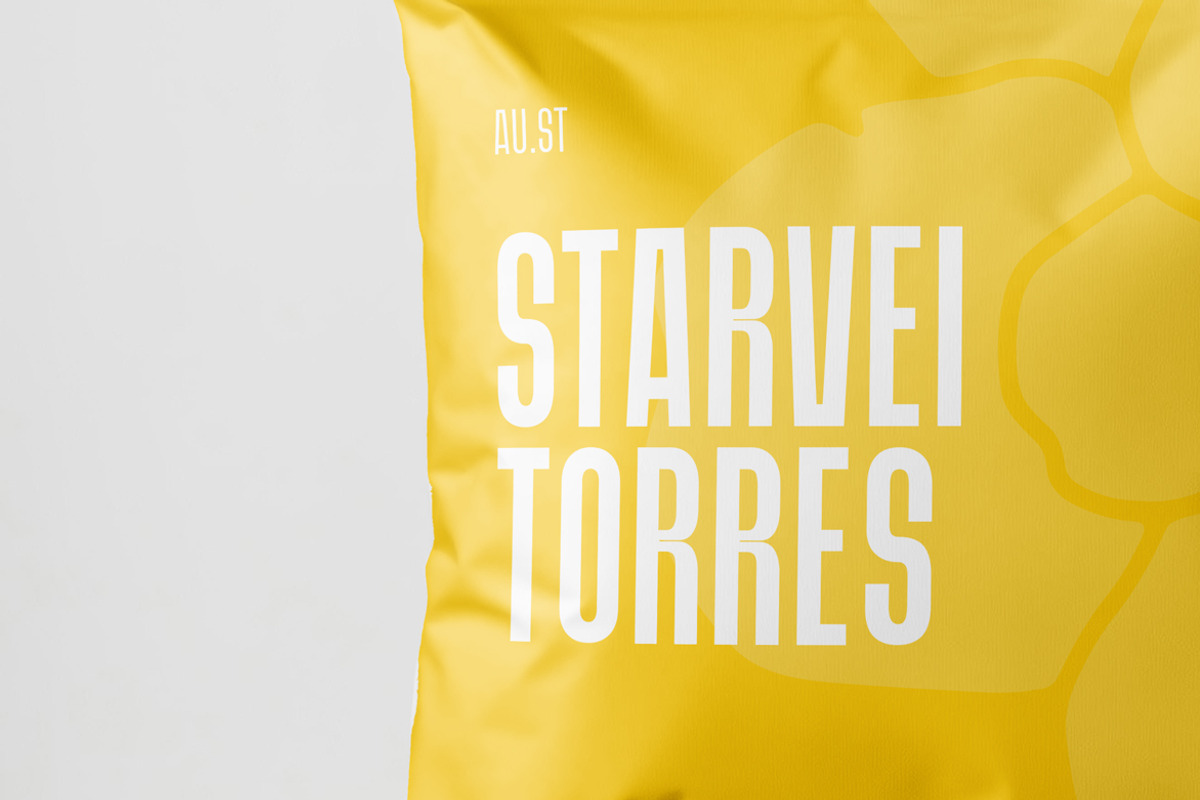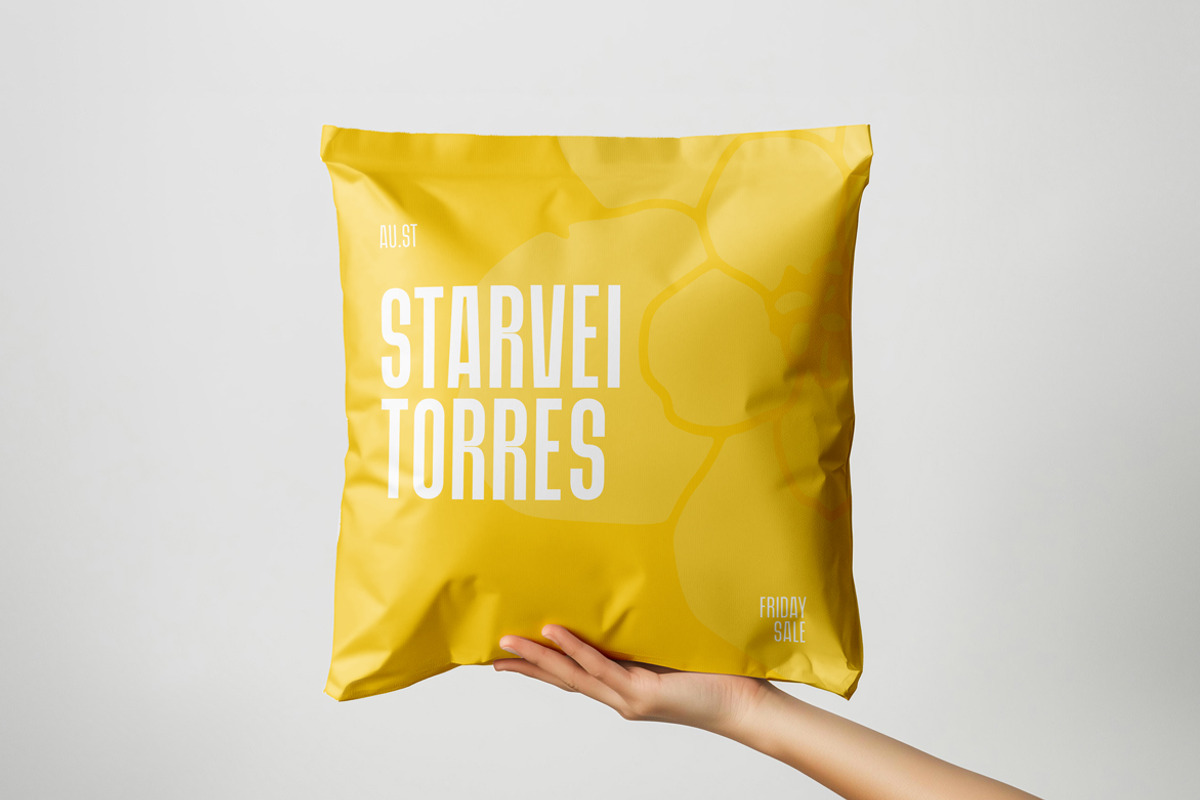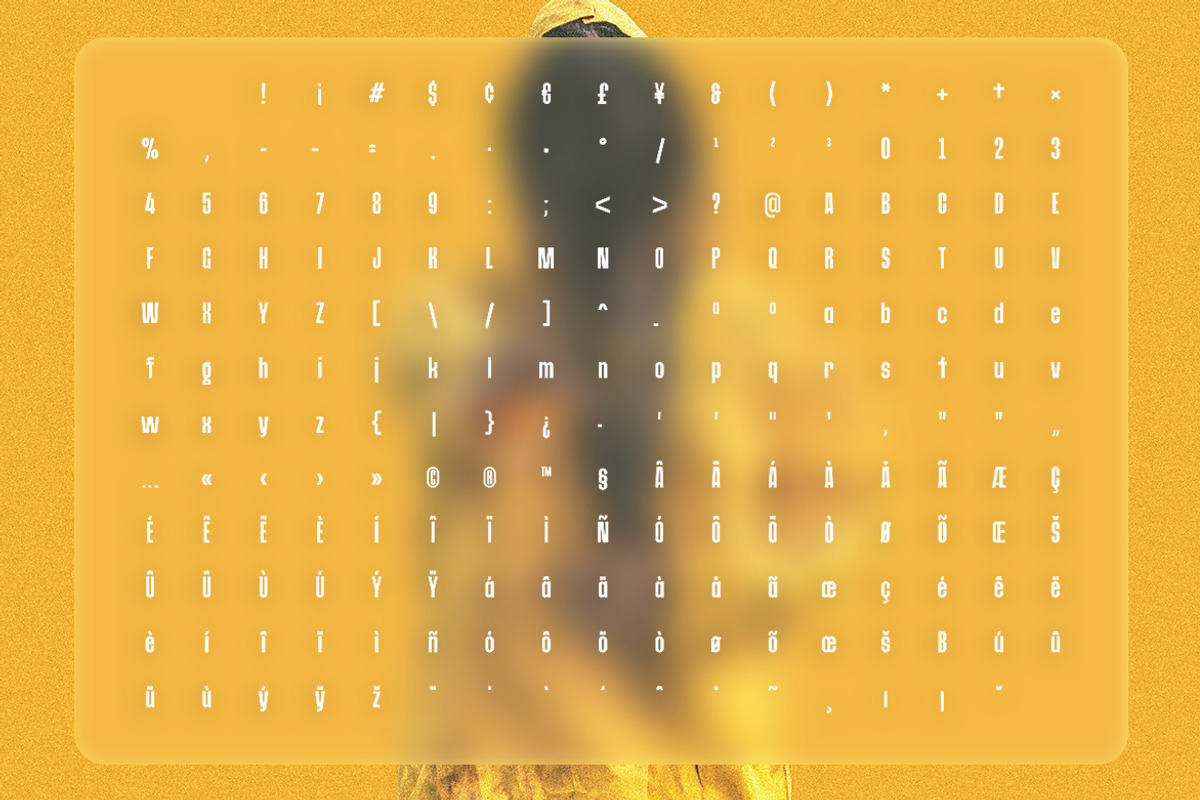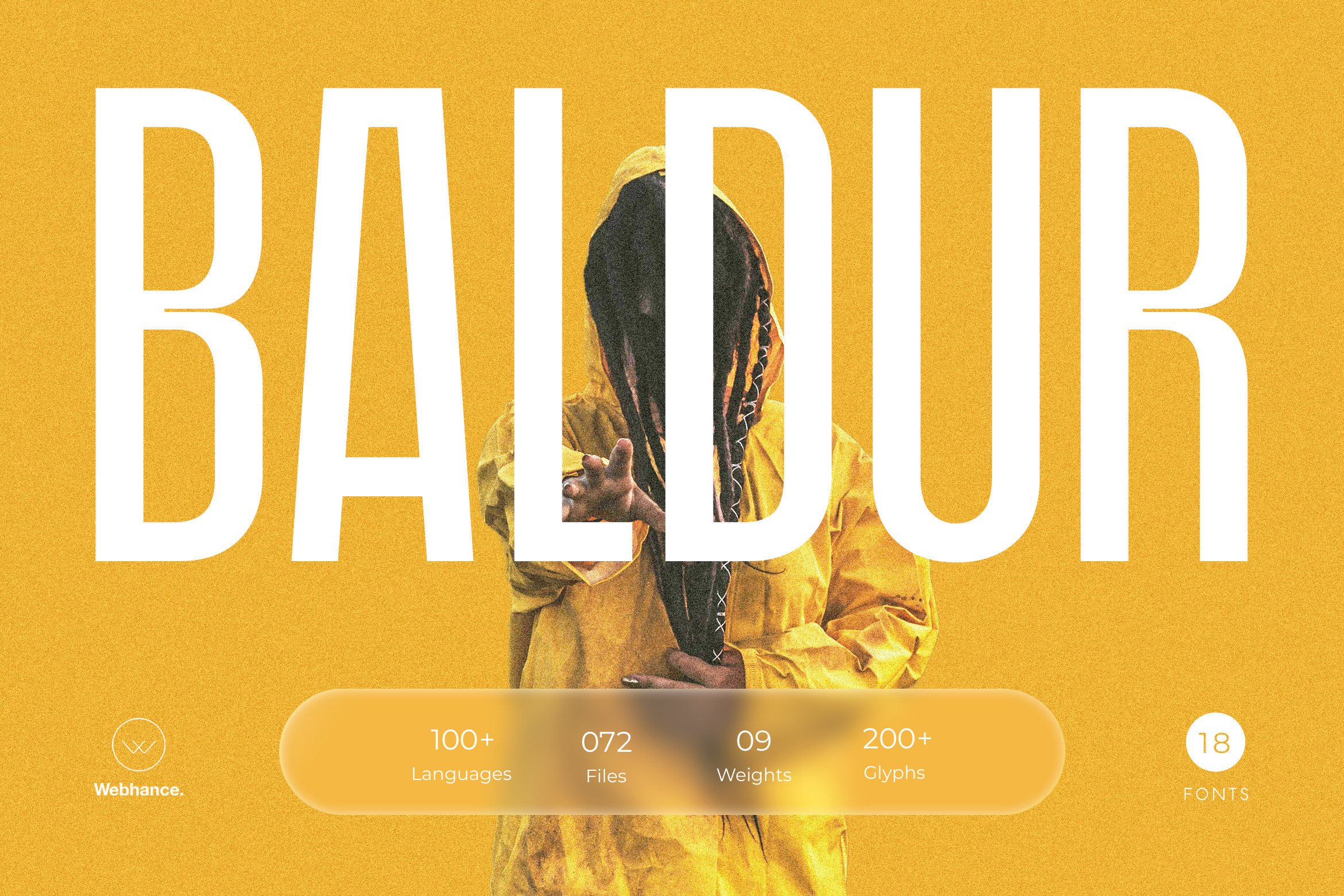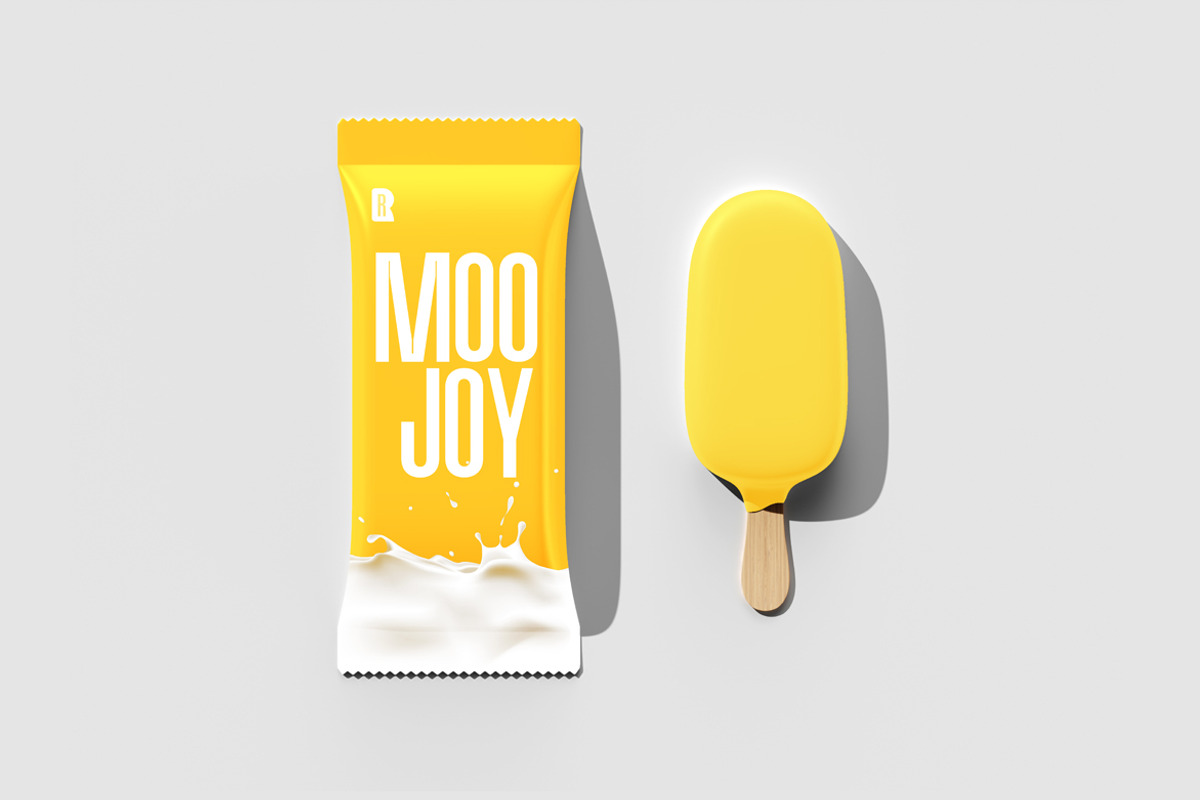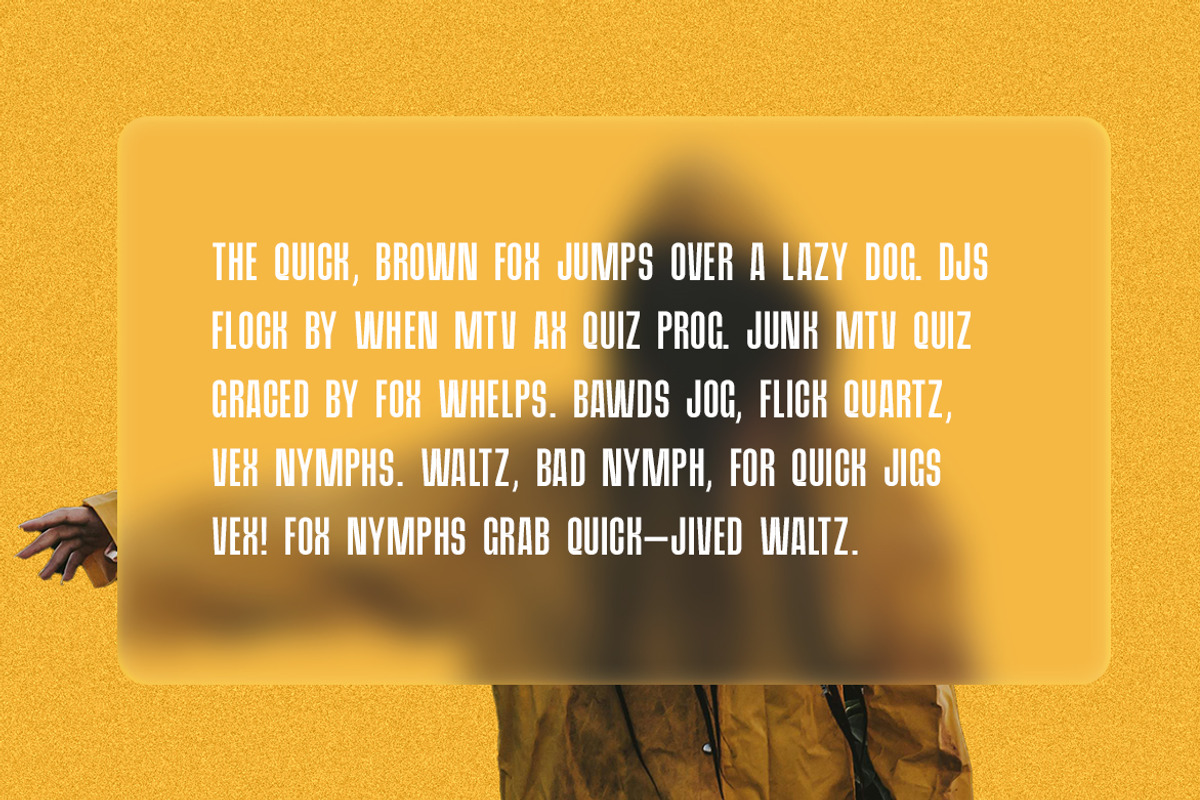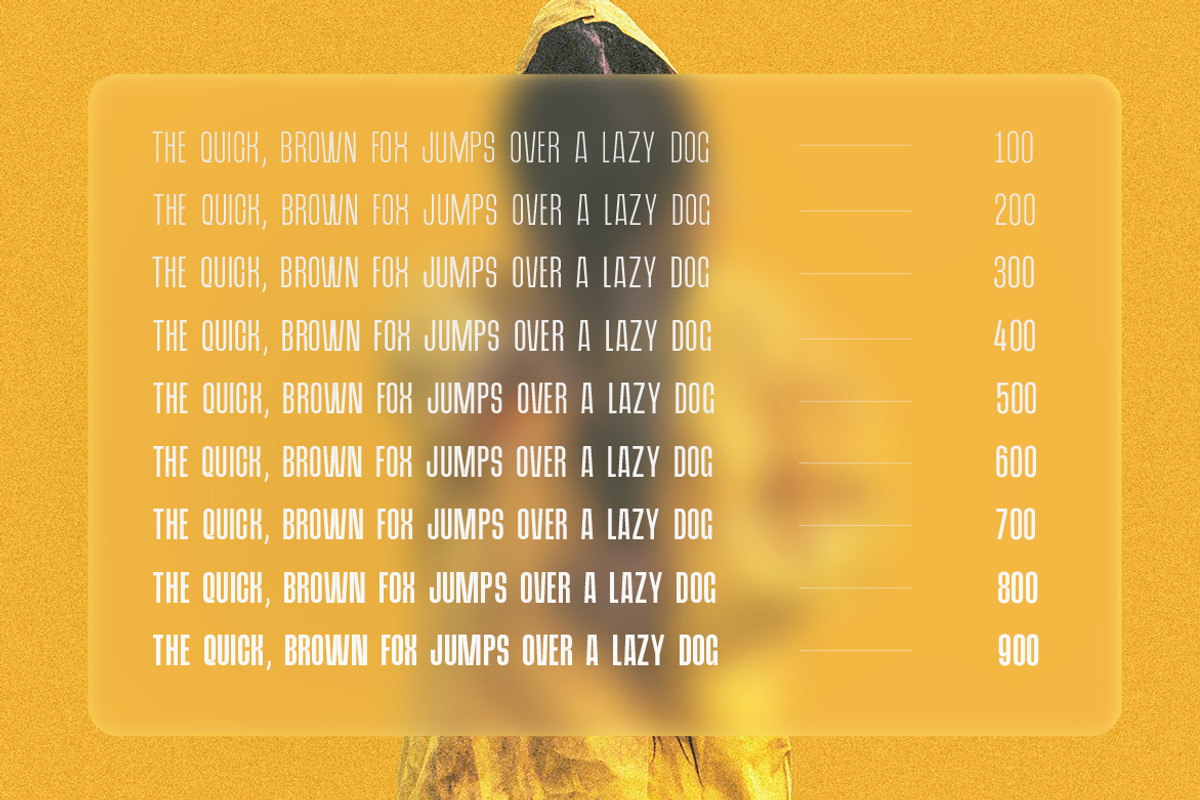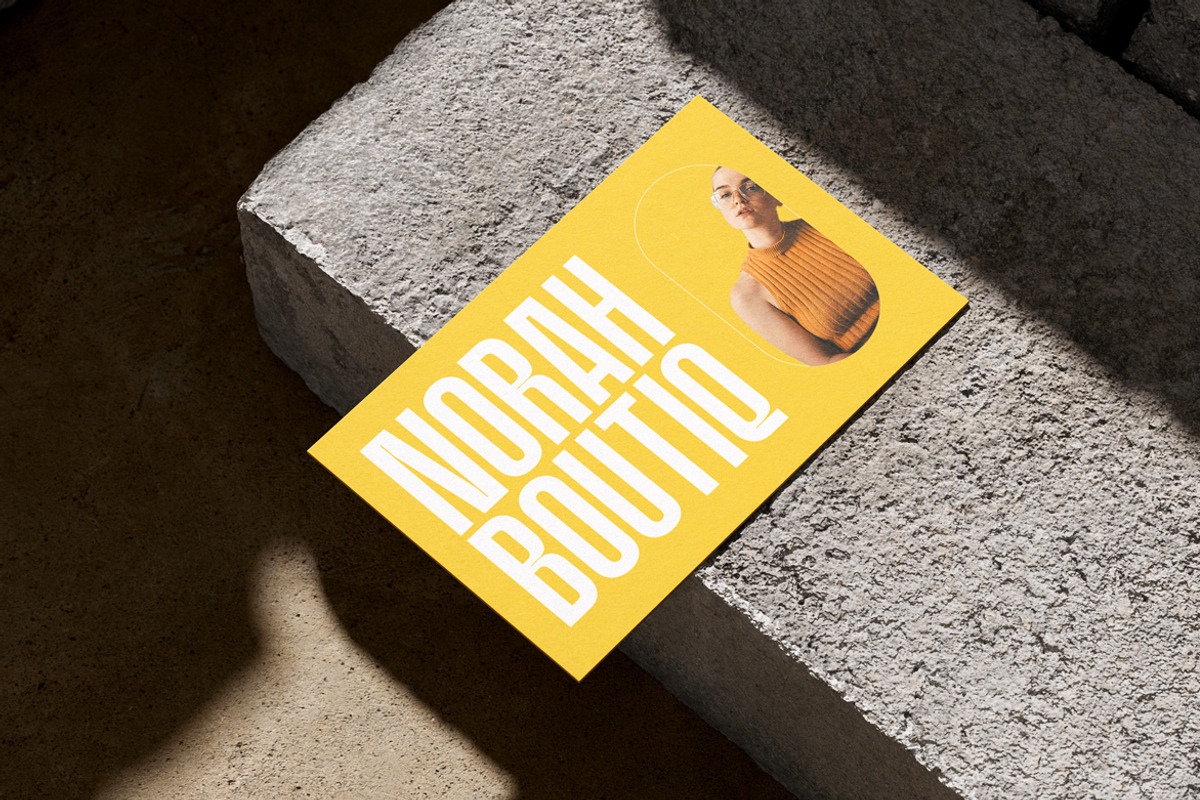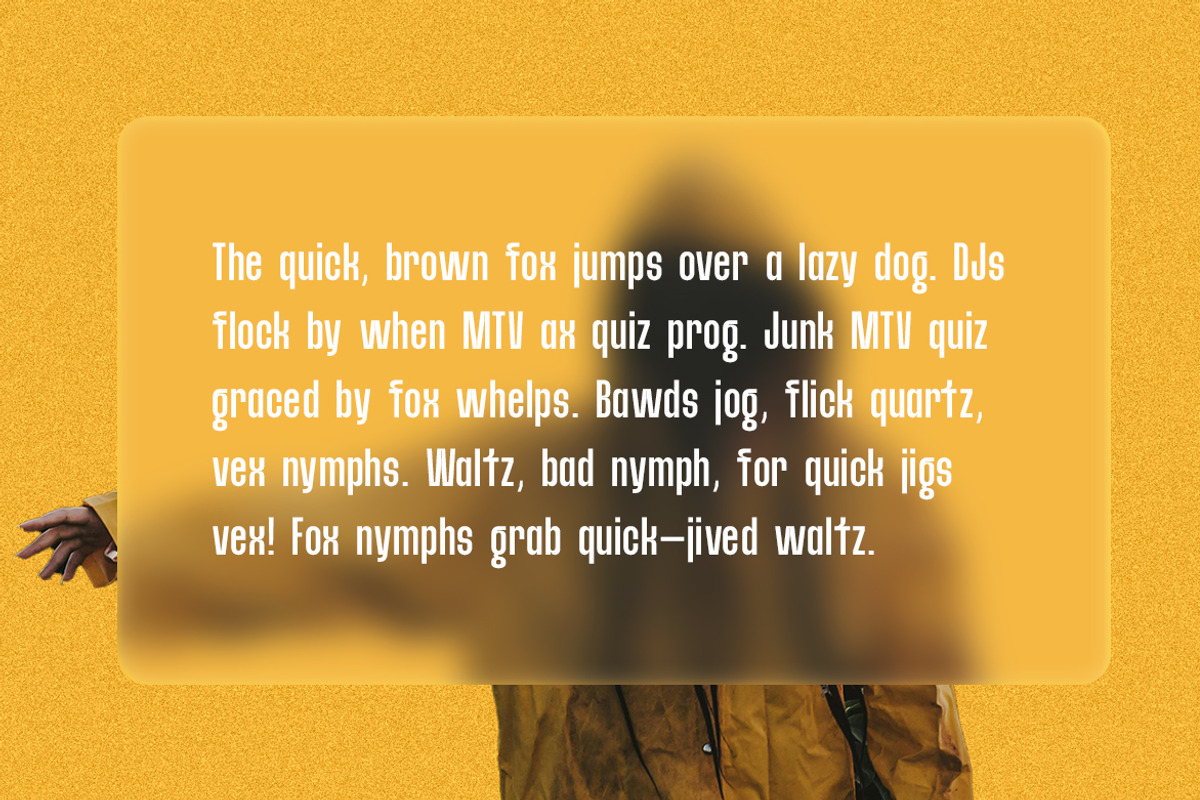
Baldur – Modern Display Font Family
Baldur – Display Sans-Serif Font Family
Baldur is a bold and condensed display typeface designed for maximum impact. With its tall forms, tight spacing, and clean structure, Baldur brings strength and clarity to posters, branding, packaging, album covers, and modern digital layouts.
The family includes 9 carefully crafted weights, each paired with a matching italic — giving you a total of 18 fonts to build striking typographic combinations with precision and flexibility.
With support for 100+ languages and 200+ glyphs, Baldur is ready for global use across both print and screen. A confident choice for designers who need sharp, modern, and space-efficient type.
Multilingual Font
Uppercase letters
Lowercase letters
09 Weights
09 Italics
200+ Glyphs
Punctuations